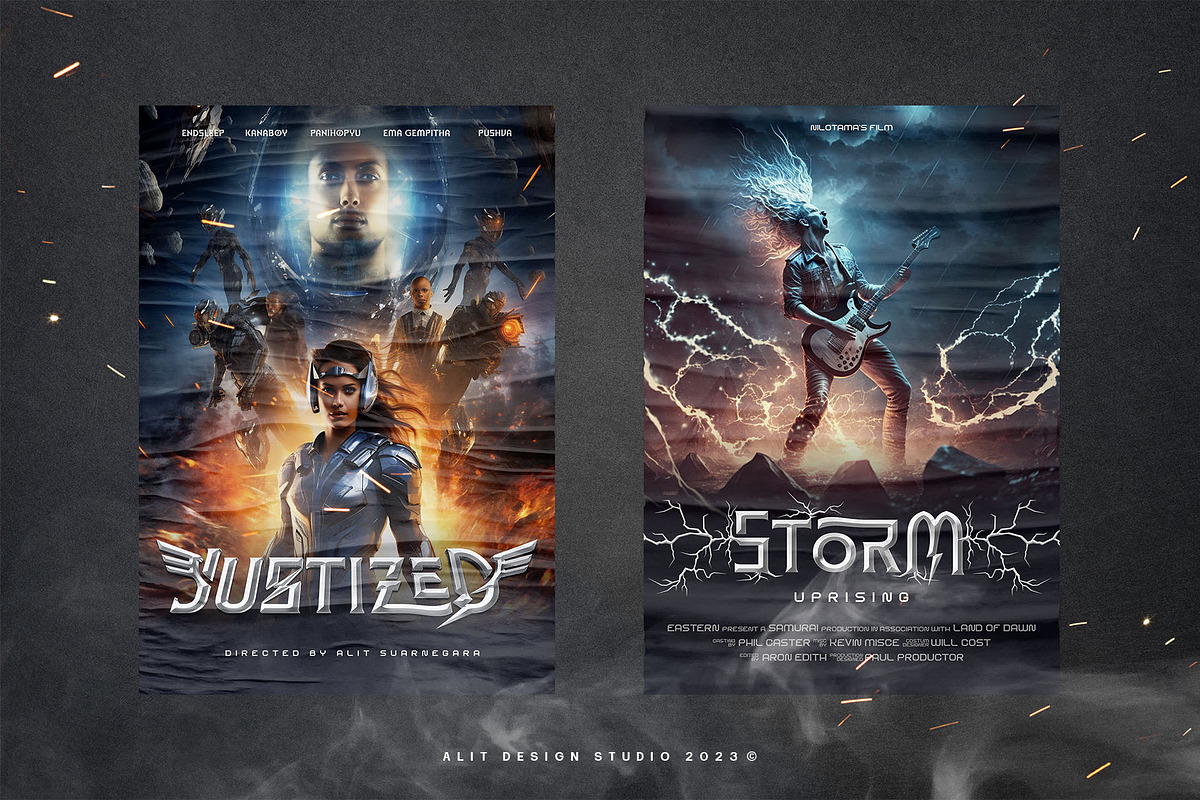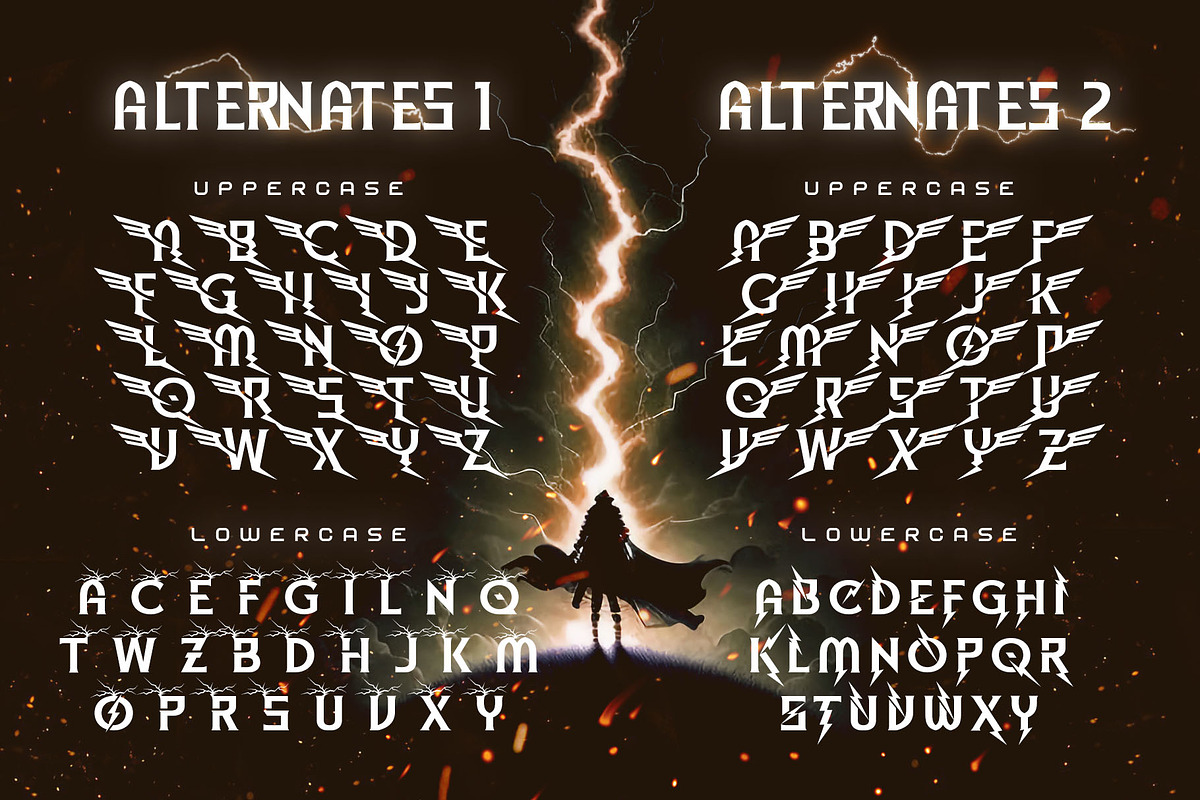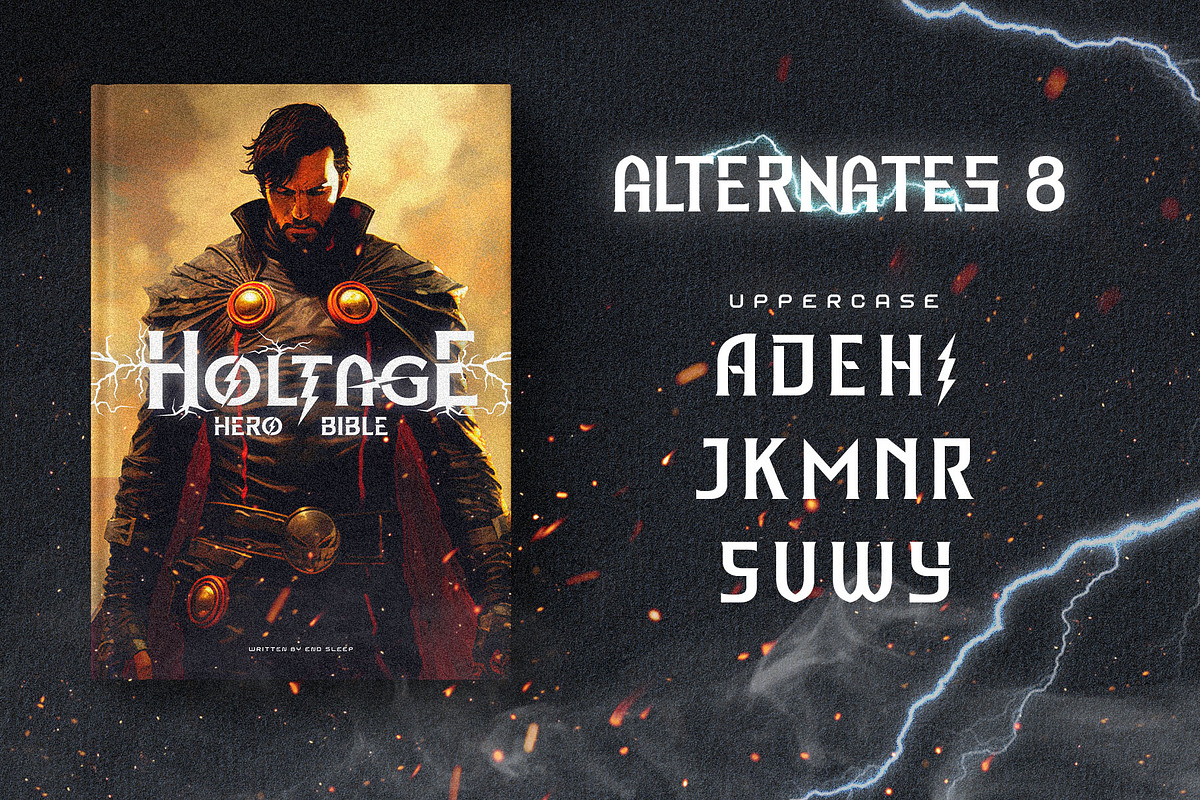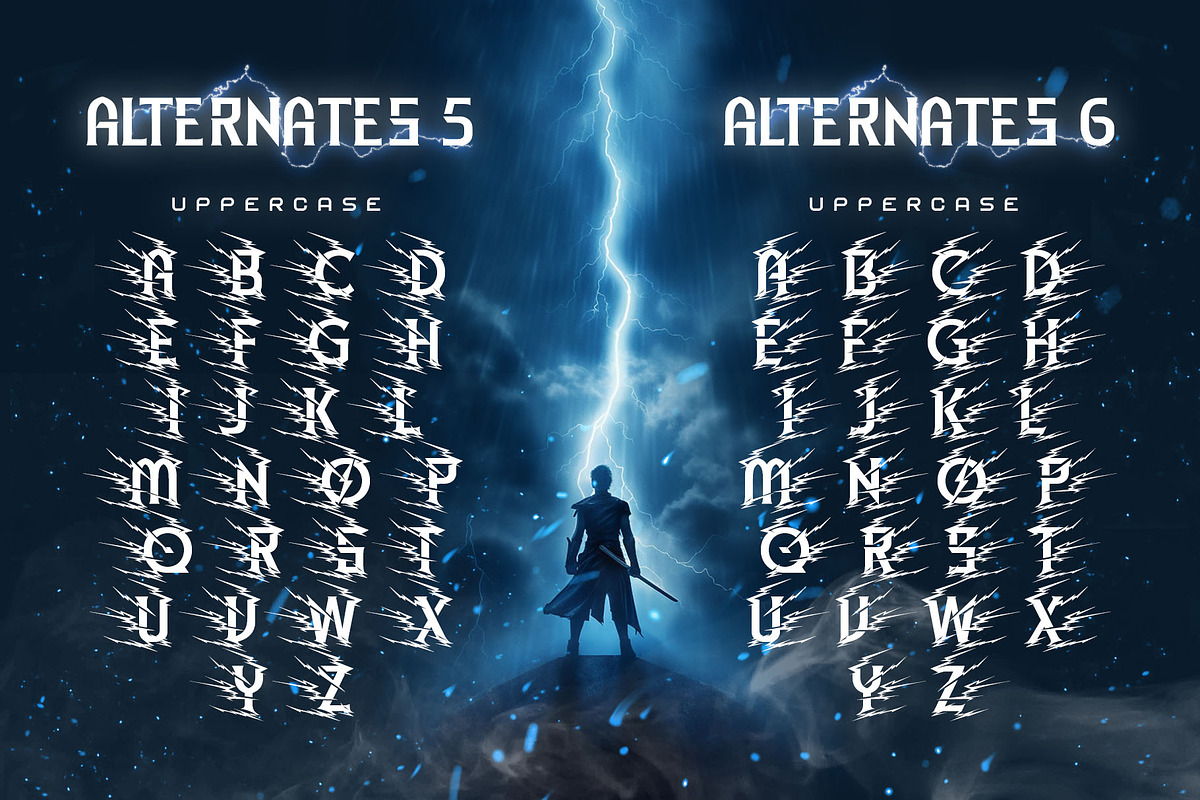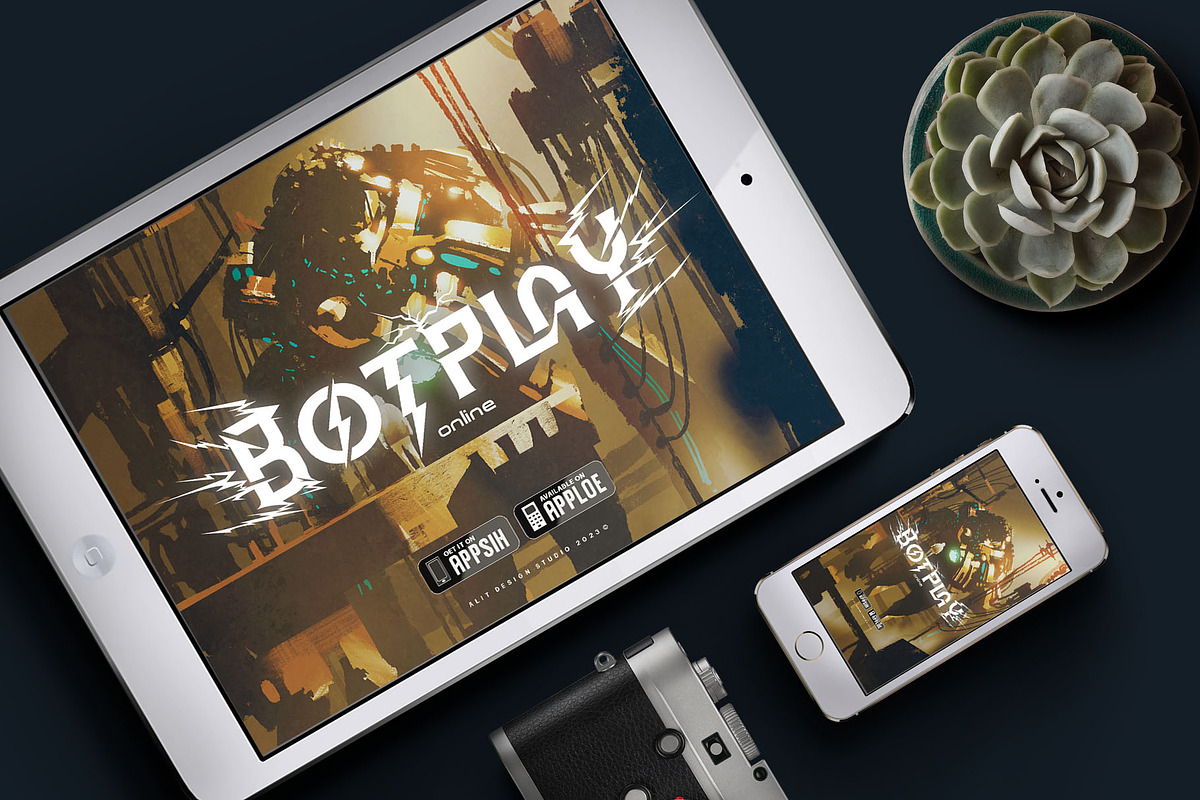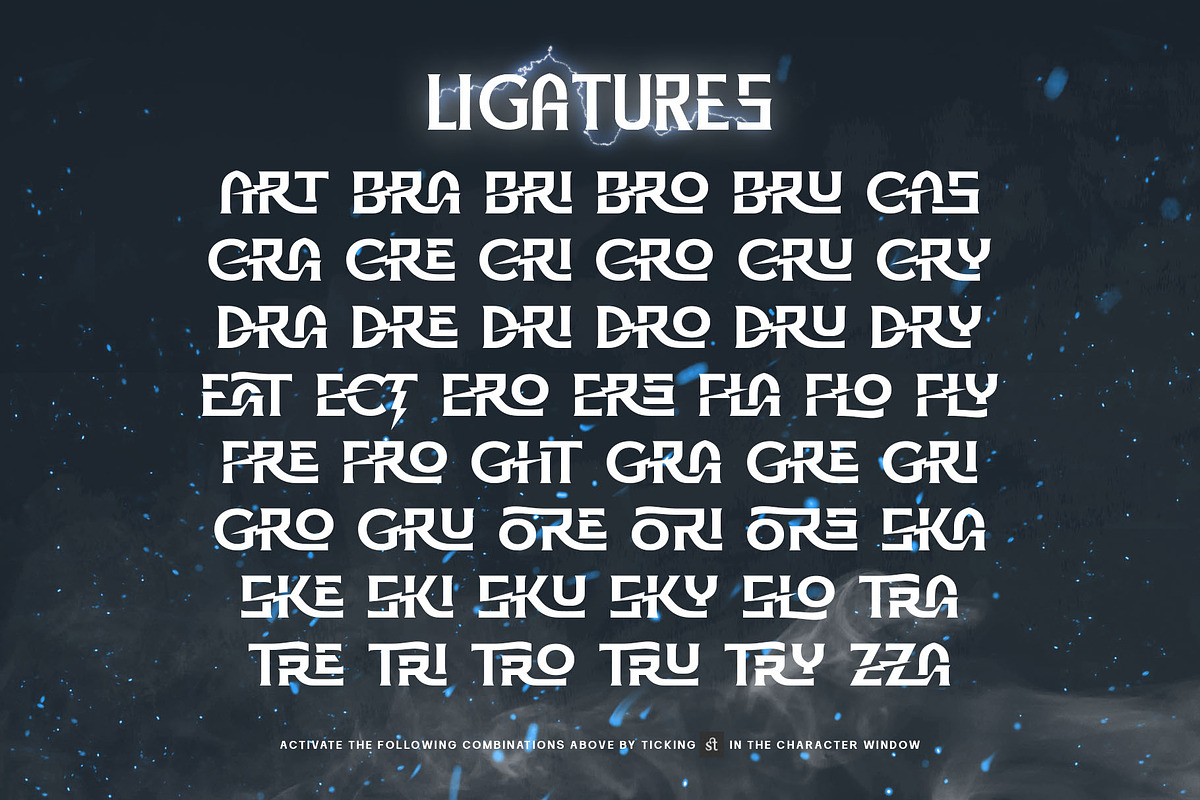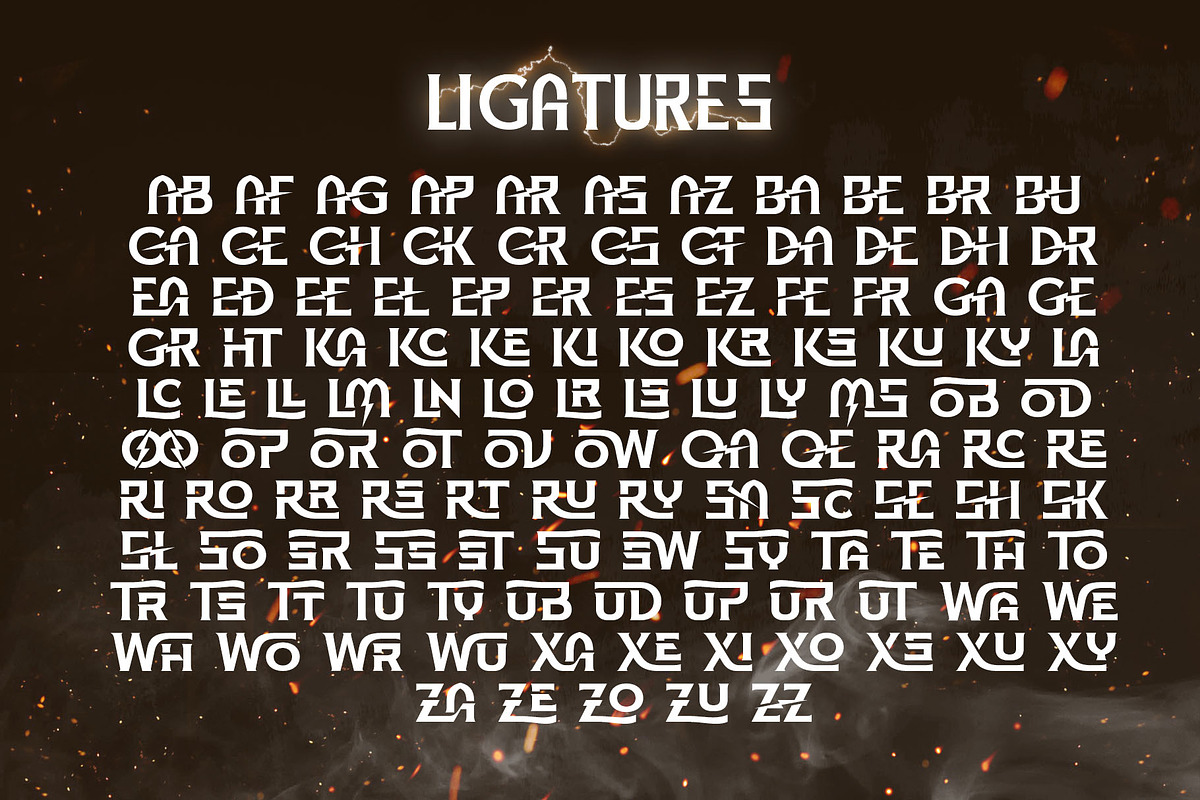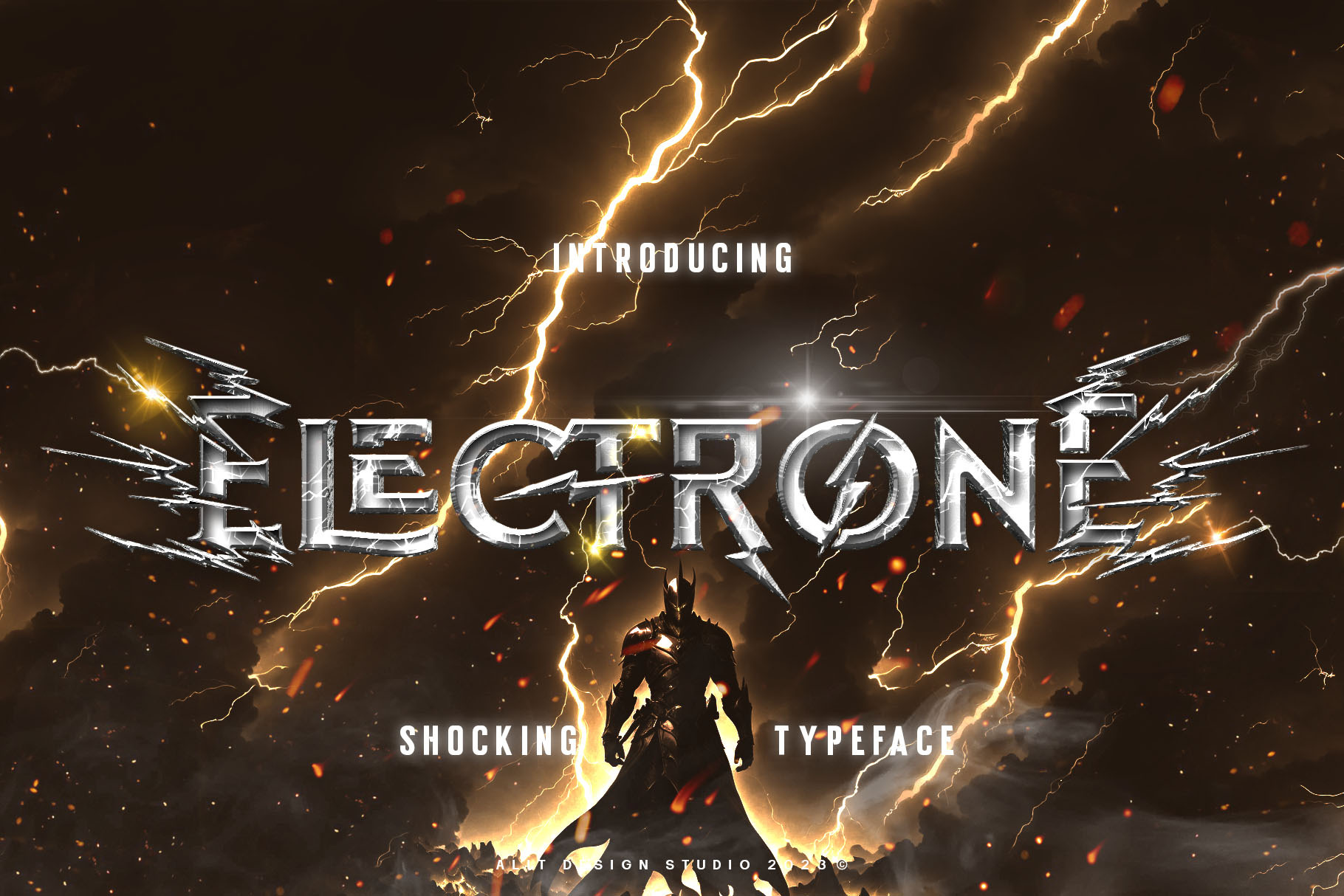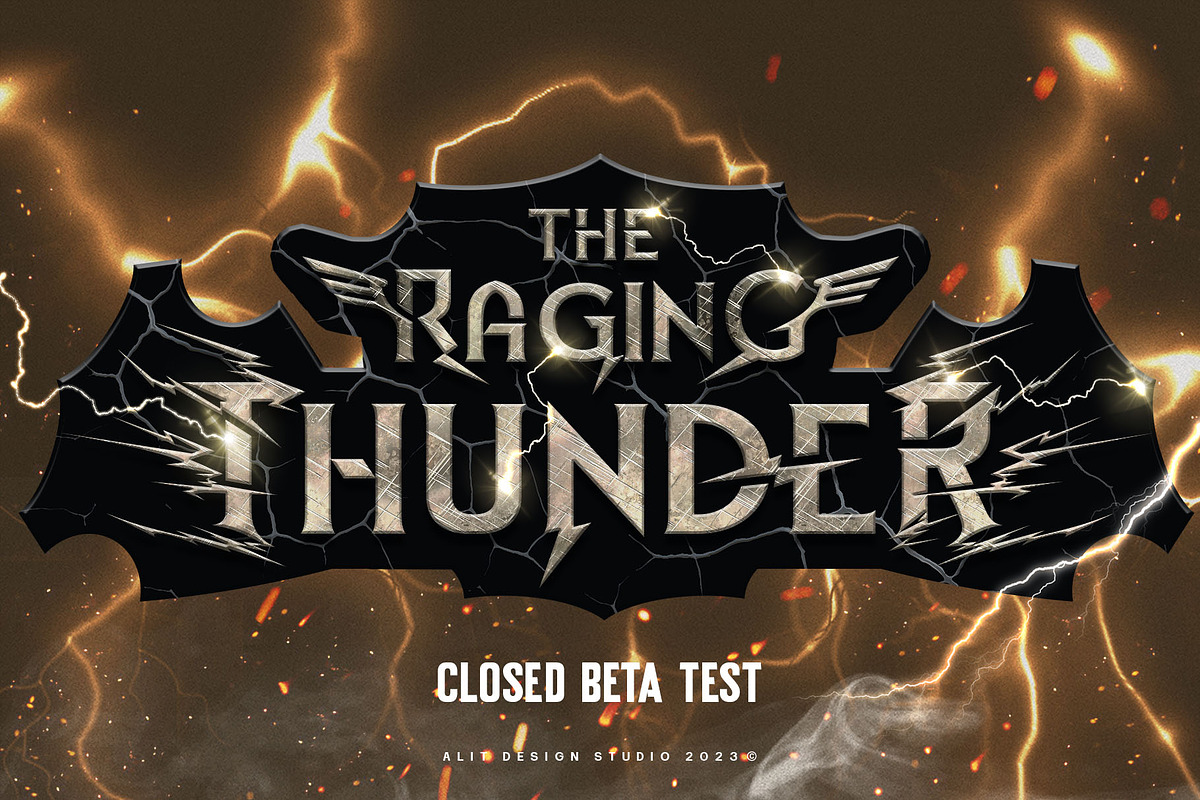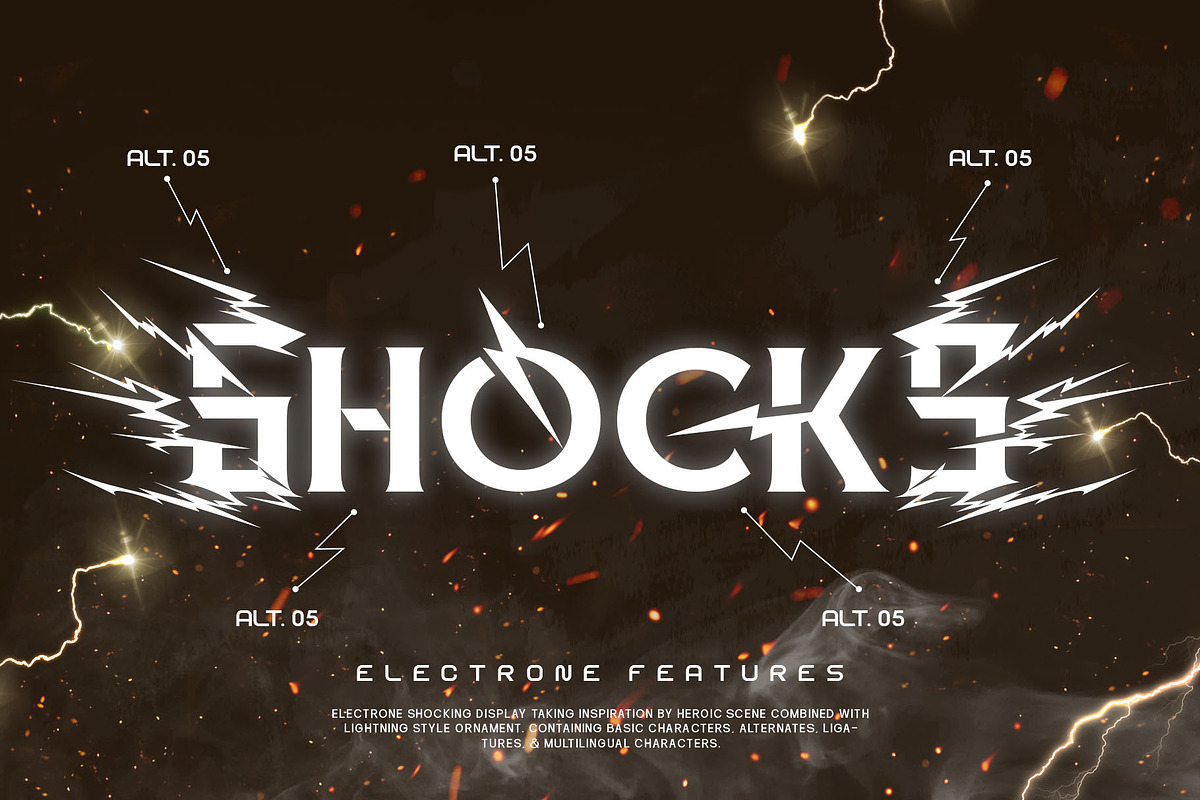
Electrone Superhero Font
💥Introducing "Electrone" – Unleash the Power of Typography with a Superhero Flair!
Unleash the electrifying energy of "Electrone," a dynamic font that embodies the essence of superheroes with lightning speed, unmatched strength, and a dash of style. This font is not just a typeface; it's a superpower for your design projects!
Electrifying Glyphs: With 890 meticulously crafted glyphs, "Electrone" offers a vast array of characters that will add a powerful punch to your designs. Every glyph is a superhero in its own right.
Sided Ligature: Seamlessly blend characters with our specially designed sided ligatures, creating a visual impact that resonates with strength and unity.
Alternate Characters: Customize your text with alternate characters to give your designs a unique and personalized touch. The alternates are carefully curated to ensure versatility without compromising the superhero aesthetic.
Lightning Swash: Add a bolt of energy to your typography with lightning swashes that strike through your text. Watch your words come to life with the electrifying force of "Electrone."
Wings of Typography: Elevate your designs to new heights with the winged elements included in "Electrone." These wings symbolize the freedom and power associated with superheroes, making your text soar above the ordinary.
Suit Up Your Designs:
"Electrone" is not just a font; it's a complete superhero costume for your words. Whether you're working on comic book titles, posters, logos, or any design that demands a bold statement, "Electrone" is here to save the day.
- Comic Books and Graphic Novels
- Superhero Movie Posters
- Action-packed Logos
- Gaming Graphics
- Apparel Design
- and more!